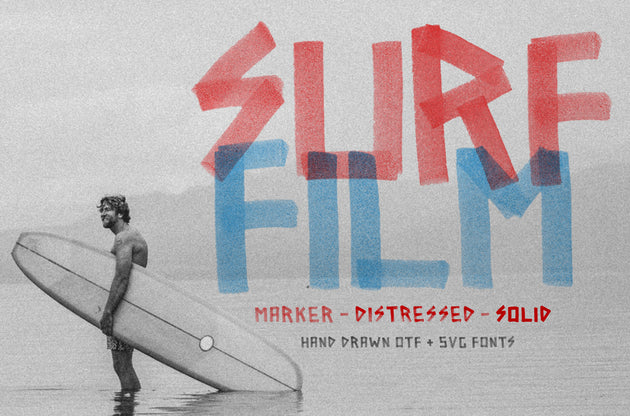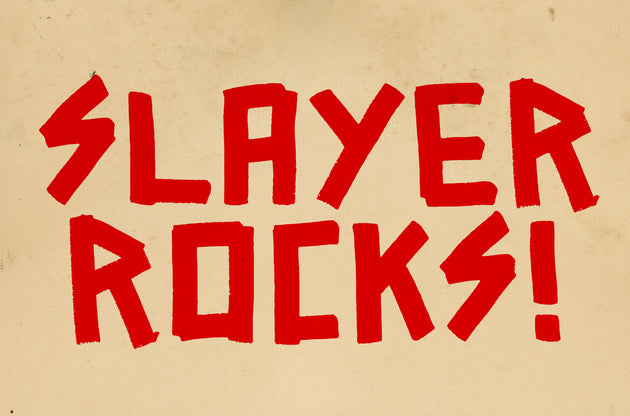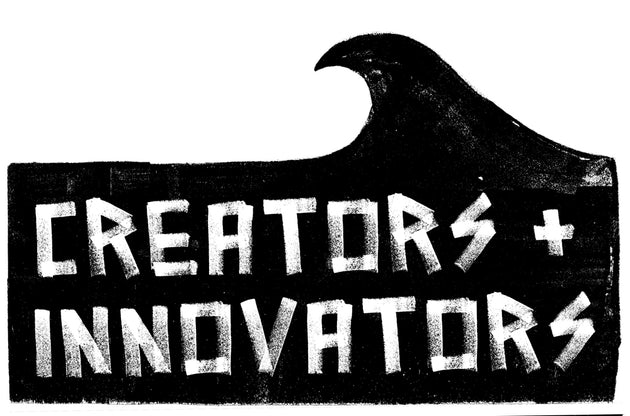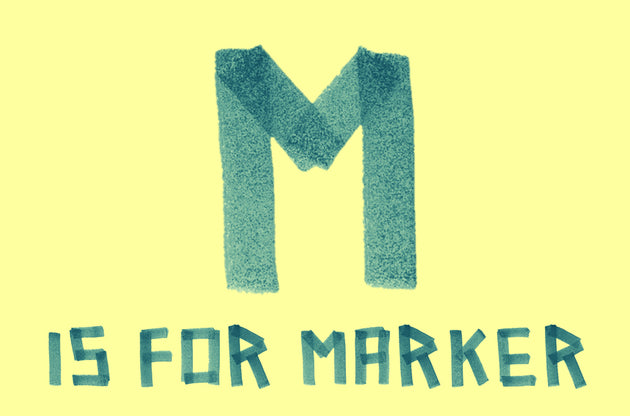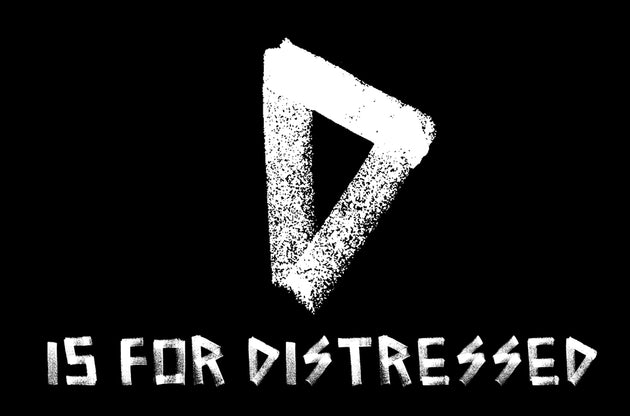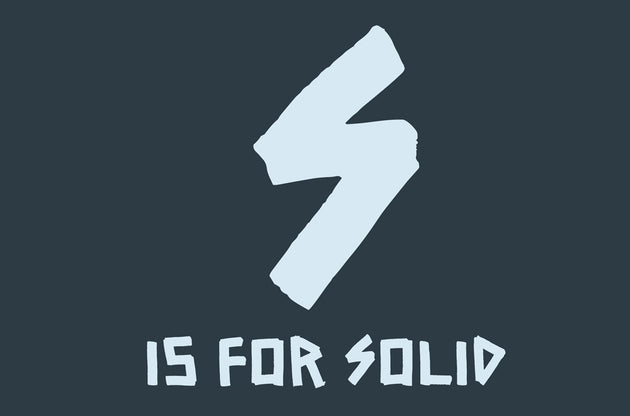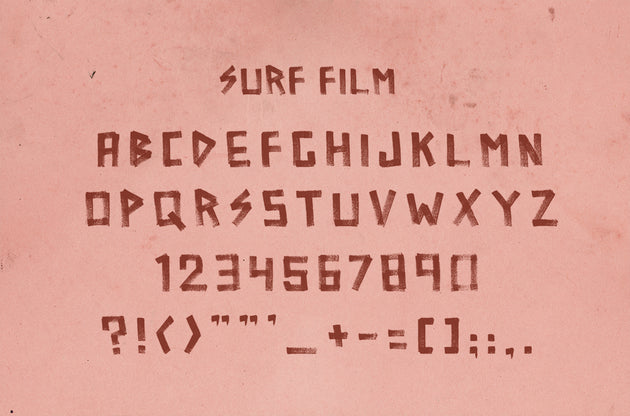
This font looks hand draw because... it was hand drawn... outside of a computer.
Surf Film is a hand drawn font available in 3 unique finishes - Marker, Distressed and Solid. This OTF font with SVG options was made with markers, and the distinct strokes can add life to any design.
SVG Fonts, usable in Adobe Photoshop, enable the nuance and texture of a hand lettered type to translate to the font form. The marker version of Surf Film is a great example of how an SVG font can emulate hand drawn type. You can use adjustment layers to change the color of the font and adjust the font layer using "multiply" to achieve stunning, true to life, marker effects!
The Regular version of Surf Film is a vector OTF font that is infinitely scalable. It still possesses the nuance of a hand lettered font, while working just like any other font in your font library.